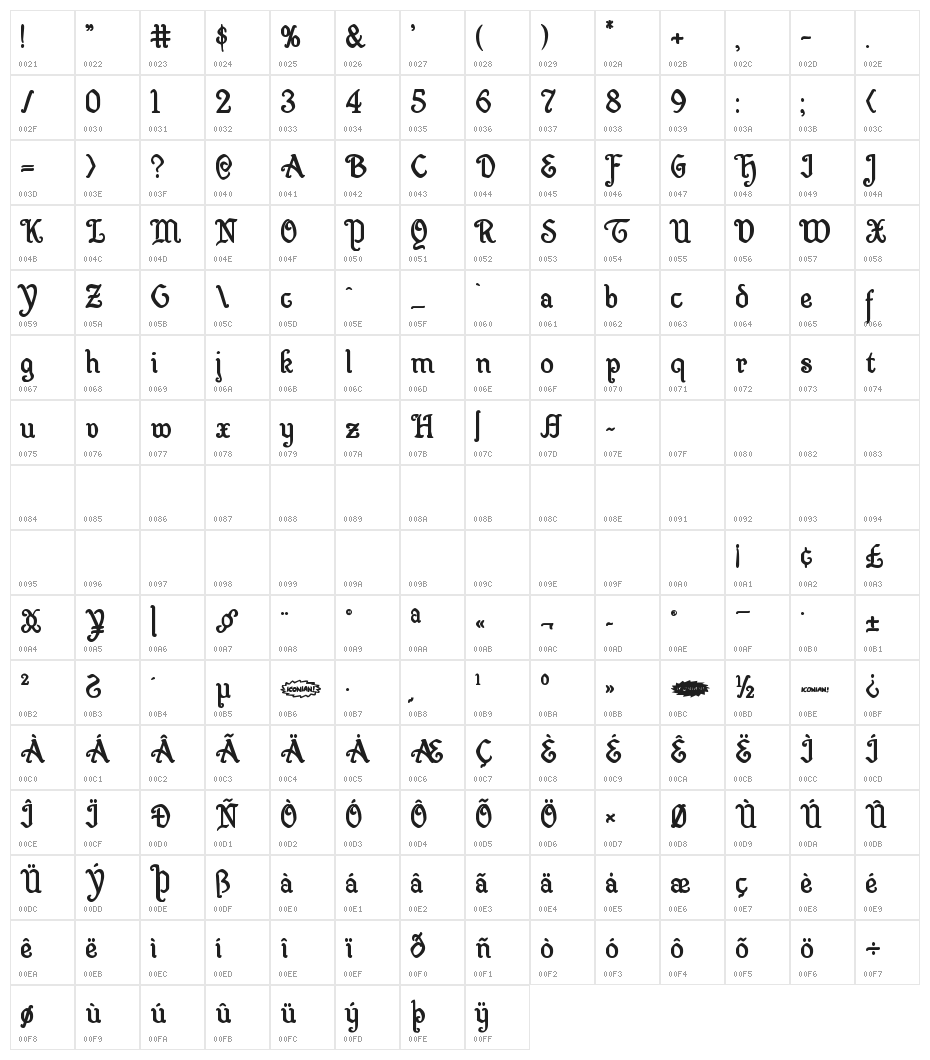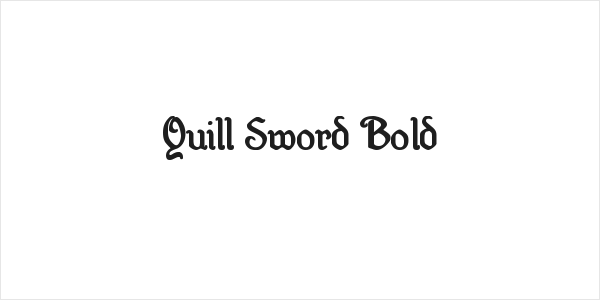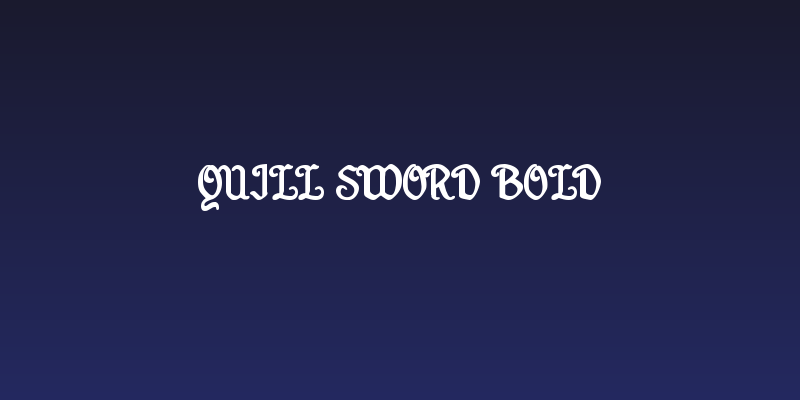
Quill Sword Bold Font
Quill Sword Bold Description
This font features a bold and decorative style with a medieval flair, characterized by its intricate and ornate letterforms. The uppercase letters exhibit a strong presence with their elaborate curves and flourishes, while the lowercase letters maintain a consistent decorative theme with slightly more restrained embellishments. The numerals are bold and clear, matching the overall aesthetic. Special characters are designed with the same attention to detail, ensuring a cohesive look across all glyphs. The font's unique style makes it stand out, ideal for projects that require a touch of historical or fantasy elements.
| Proposed Projects | Ideal for fantasy-themed designs, historical event posters, book covers, and video game graphics. |